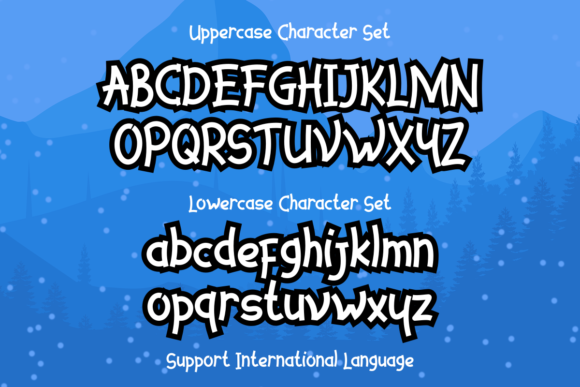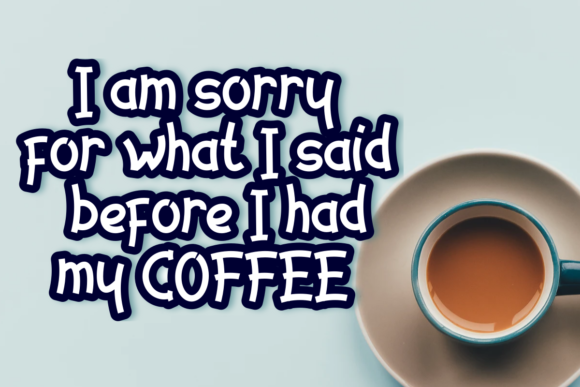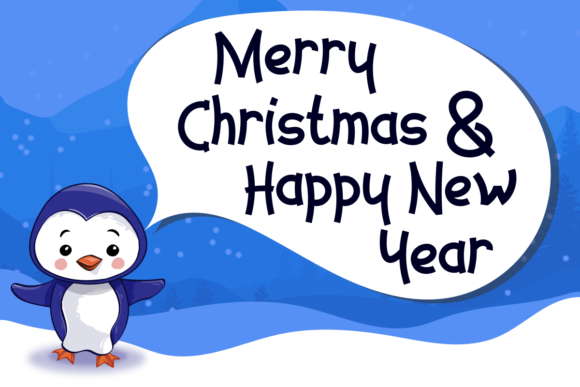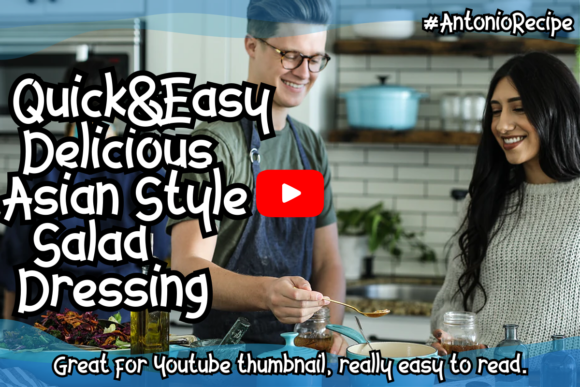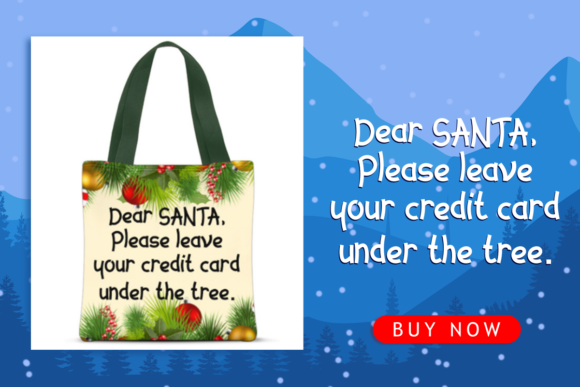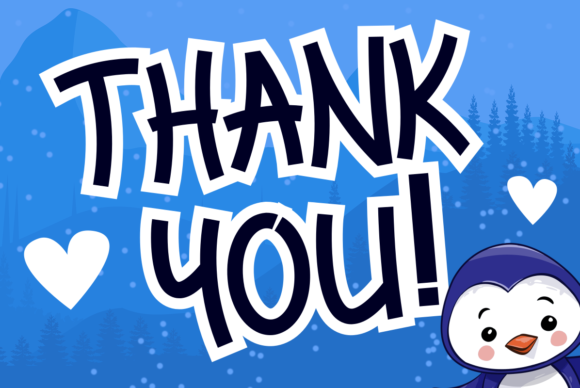
Introduction to Rollenzo Font Font
Fonts play a crucial role in design, and the Rollenzo Font font is a typeface that brings both character and versatility to any project. Whether you’re working on a branding project, a website, or a print design, the Rollenzo Font font offers a unique style that can elevate your work.
Rollenzo is a cute and quirky sans serif font with a whimsical feel.
Get inspired by its unique charm .
Key Features of Rollenzo Font Font
Why Choose Rollenzo Font Font?
The Rollenzo Font font is more than just a typeface – it’s a design tool that helps you communicate your message with style and clarity. Its unique character set and versatile design make it suitable for a wide range of applications, from elegant invitations to bold headlines.
With its carefully crafted letterforms and balanced proportions, the Rollenzo Font font ensures readability and visual appeal across all mediums.
What makes Rollenzo Font font special?
The Rollenzo Font font stands out with its unique design, exceptional readability, and versatility across various design applications.